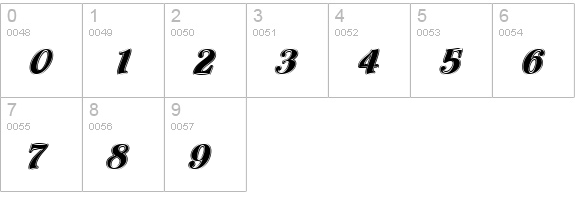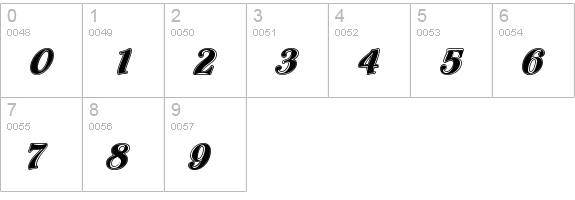
FlamencoInlD Font Details
FlamencoInlD font is a striking display typeface that exudes elegance and flamboyance. With its intricate details and graceful curves, this font is perfect for adding a touch of sophistication to your design projects. The FlamencoInlD font is versatile and can be used for various purposes such as branding, invitations, posters, and more. The best part about FlamencoInlD font is that it is completely free to download at FontsMarket.com. This means you can add this beautiful font to your collection without any cost. So why wait? Download FlamencoInlD font now and elevate your designs with its unique flair and charm.